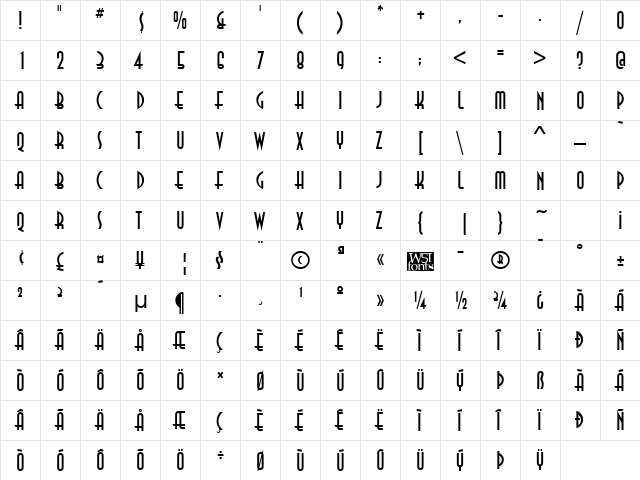
Anastasia Regular Font Preview
Anastasia Regular
Design Context for Anastasia Typeface
Anastasia is a composed and adaptable typeface that performs quietly and consistently across a wide range of design contexts.